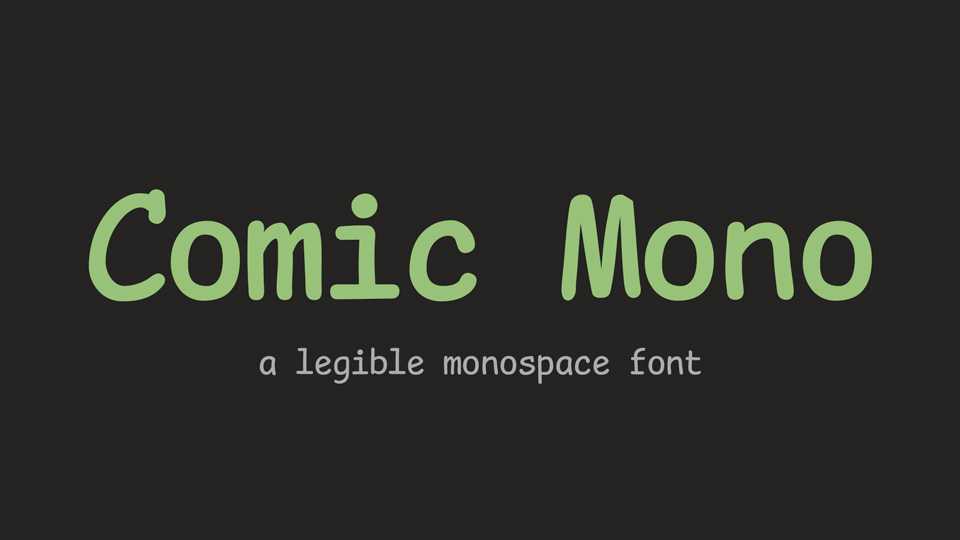
Download Comic Mono typeface, a legible monospace font family in two weights… the very typeface you’ve been trained to recognize since childhood. Comic Mono is based on the Shannon Miwa’s Comic Shanns.
Designer: Thai Pangsakulyanont